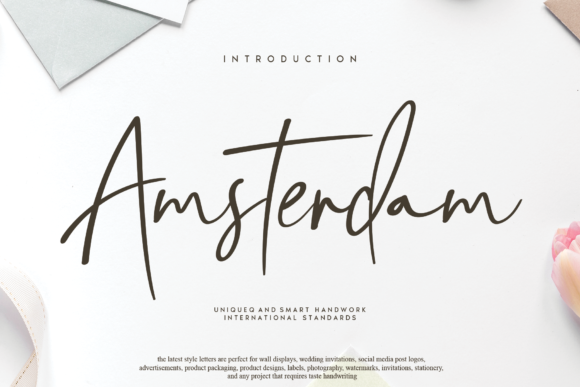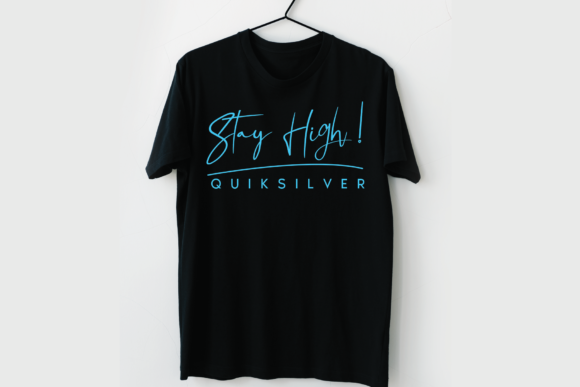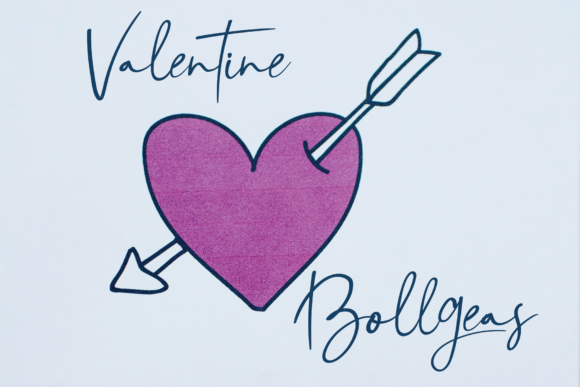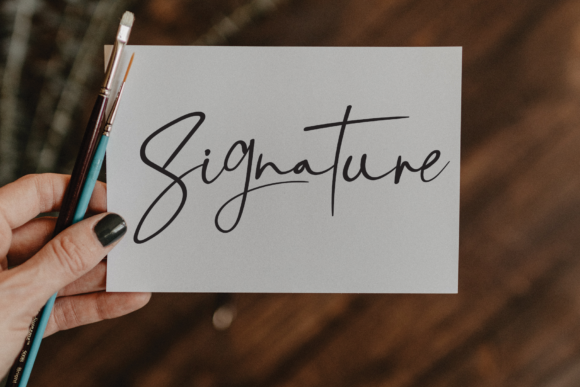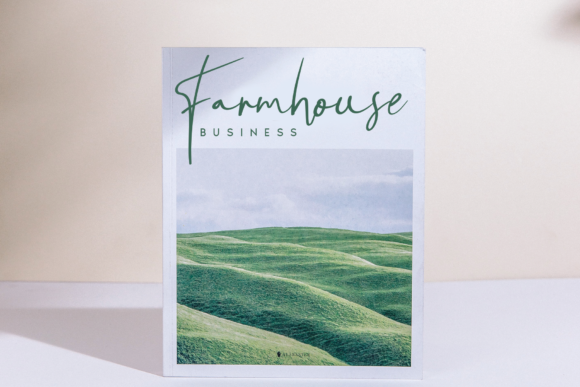
Amsterdam Font
About Amsterdam Font
Amsterdam: A Relaxed and Timeless Handwritten Font
Introducing Amsterdam, a font that embodies a sense of relaxation and timelessness. With its distinct and enduring style, Amsterdam captures hearts and sparks inspiration for creating spectacular designs that stand the test of time.
The allure of Amsterdam lies in its relaxed and laid-back charm. Each letter is thoughtfully crafted to evoke a sense of ease and comfort, allowing your designs to exude a sense of tranquility.
Designing with Amsterdam is an enchanting experience. Its timeless style infuses your creations with an enduring appeal, making them resonate with both the past and the present.
Amsterdam’s versatility knows no bounds. Whether you’re working on wedding invitations, heartfelt quotes, inspiring posters, or any other creative project, Amsterdam effortlessly adapts to suit your vision.
Fall in love with Amsterdam’s unique handwriting. Its timeless elegance brings a touch of nostalgia and sophistication to your designs, creating an everlasting impact on those who admire them.
Unleash your creativity with Amsterdam. Its relaxed and timeless charm allows you to craft designs that emanate a sense of calm and simplicity, yet carry an air of elegance.
Embrace the magic of Amsterdam’s relaxed appeal. It adds a sense of serenity and timelessness to your projects, creating designs that resonate with both the heart and the mind.
In conclusion, Amsterdam is more than just a font; it’s a timeless treasure that invites you to create designs that transcend the ordinary. With its relaxed and enduring style, Amsterdam opens the door to limitless creative possibilities. Fall in love with its tranquil charm and let it breathe life into your designs, making them truly spectacular. For designs that capture the essence of timeless beauty, Amsterdam is the font that will accompany you on your creative journey. Let Amsterdam be the source of inspiration that guides you to craft designs that remain etched in memories for generations to come.